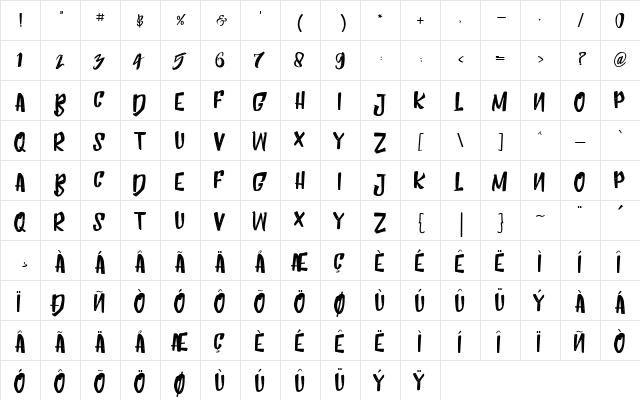
Humblle Rought All Caps Regular
| Foundry | Dirtyline Studio |
Design Context for Humblle Rought All Caps Typeface
Humblle Rought All Caps trades polish for personality, using distressed and eroded forms to bring grit and attitude to creative work.
A strong fit for alternative music projects, graffiti-adjacent design, and anything that deliberately resists polish.
Pro Tip: Use Humblle Rought All Caps at larger sizes where the texture and irregularity of each letterform can be clearly seen — it loses its character at small sizes.